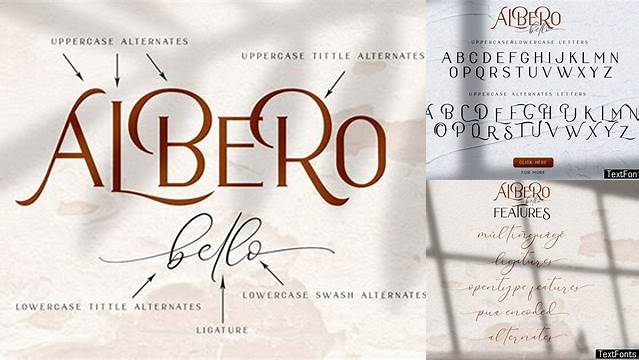
Alberobello Font: Free Serif Display For You
Hey guys! Are you on the hunt for a stunning and unique serif display font? Look no further! We're diving deep into the world of Alberobello, a font that's capturing hearts with its elegant curves and timeless appeal. In this article, we'll explore everything you need to know about this amazing font, from its history and characteristics to where you can snag it for free and how to best use it in your design projects. Get ready to unleash your creativity with Alberobello! This font is perfect for adding a touch of sophistication to any design. Using a display font like Alberobello can elevate your projects and make them stand out from the crowd. You can use Alberobello in logos, websites, and various marketing materials.
1. What is Alberobello Font?
Alberobello is more than just a font; it's a statement. This elegant serif display font draws inspiration from classic typography while incorporating a modern twist. Its distinctive letterforms and balanced proportions make it incredibly versatile, suitable for a wide range of design applications. If you are looking for something that feels both vintage and contemporary, Alberobello should be high on your list. Its clean lines and sophisticated details create a visually appealing typeface that is both legible and captivating. The font's personality shines through in its unique serifs and the subtle variations in stroke weight. You'll notice the careful attention to detail in every character, making Alberobello a true work of art. Think of Alberobello as the little black dress of fonts – it’s classic, timeless, and always in style. Whether you're designing a wedding invitation, a brand logo, or a website header, Alberobello adds a touch of class and sophistication that's hard to beat. It's the kind of font that makes people stop and take notice, leaving a lasting impression with its subtle yet powerful presence.
2. The History and Inspiration Behind Alberobello
To truly appreciate Alberobello, it helps to understand its roots. This font often takes its name and inspiration from the picturesque town of Alberobello in Italy, known for its unique trulli architecture – whitewashed stone huts with conical roofs. The font's design subtly reflects the town's charm and character, blending traditional Italian aesthetics with a contemporary feel. The creators of Alberobello likely aimed to capture the essence of this enchanting town, translating its architectural beauty into typographic form. Imagine the quaint streets and the striking silhouettes of the trulli; these images are subtly echoed in the font's distinctive shapes and lines. The historical context adds depth and meaning to the font, making it more than just a set of characters. It's a piece of Italian heritage, reimagined for the digital age. This connection to history gives Alberobello a sense of authenticity and timelessness. It's a font that tells a story, evoking the spirit of a place and a culture. When you use Alberobello, you're not just choosing a typeface; you're choosing to bring a little piece of Italy into your design.
3. Key Characteristics of Alberobello Serif
What makes Alberobello stand out from the crowd? Let's dive into its key characteristics. As a serif font, it features the small decorative strokes (serifs) at the ends of the letters, giving it a classic and formal appearance. However, Alberobello doesn’t stop there. Its serifs are uniquely designed, often with a slight curve or a distinctive shape, adding a touch of personality. The contrast between thick and thin strokes is another defining feature, creating visual interest and enhancing readability. The letterforms are well-balanced and proportioned, ensuring a harmonious and elegant overall look. Alberobello also boasts a generous x-height (the height of the lowercase letters), which contributes to its legibility, even at smaller sizes. This is a crucial factor for display fonts, which are often used in headings and titles. The font's overall aesthetic is both sophisticated and approachable, making it suitable for a wide range of projects. Think of it as a refined and friendly serif, perfect for conveying a sense of elegance without feeling stuffy or overly formal. It’s these subtle nuances that make Alberobello such a captivating typeface.
7. Best Design Practices for Using Alberobello
Now that you have Alberobello font ready to go, let's talk about how to use it effectively. As a display font, Alberobello shines brightest in headlines, titles, and logos. Its elegant and distinctive character makes it perfect for grabbing attention and conveying a sense of sophistication. However, it's not the best choice for long blocks of text, as its ornate serifs can become tiring on the eyes. Use it sparingly and strategically to maximize its impact. Pairing Alberobello with a simpler sans-serif font for body text is a great way to create visual contrast and ensure readability. Think of it as creating a harmonious balance between the decorative and the functional. When using Alberobello, pay attention to kerning and tracking (the spacing between letters and words). Adjust these settings to ensure the font looks its best, especially in large sizes. Also, consider the overall tone and message of your design. Alberobello's elegant aesthetic lends itself well to projects that require a touch of class, such as wedding invitations, branding materials for luxury goods, or editorial layouts. But don't be afraid to experiment and break the rules! Sometimes, the most unexpected combinations can lead to stunning results.
8. Pairing Alberobello with Other Fonts
Choosing the right font pairing can make or break a design. Alberobello, with its strong personality, needs a partner that complements it without overshadowing it. A classic approach is to pair it with a clean and modern sans-serif font for body text. This creates a visual hierarchy, allowing Alberobello to stand out in headlines while the sans-serif font ensures readability in longer passages. Some popular sans-serif pairings include Open Sans, Lato, Montserrat, and Roboto. These fonts are versatile and neutral enough to let Alberobello shine. Another option is to pair Alberobello with a more subtle serif font for body text, creating a cohesive yet elegant look. In this case, consider fonts like Merriweather, Lora, or Playfair Display. These serif fonts have a softer, more understated character that complements Alberobello's distinct serifs. When choosing a font pairing, think about the overall message and tone you want to convey. A high-contrast pairing (like Alberobello with a very simple sans-serif) can create a bold and modern feel, while a lower-contrast pairing (like Alberobello with a subtle serif) can evoke a more classic and refined aesthetic. The key is to find a balance that enhances both fonts and creates a visually appealing design.
9. Alberobello for Branding and Logo Design
If you're looking to create a brand identity that exudes elegance and sophistication, Alberobello is an excellent choice. Its distinctive serifs and refined letterforms make it perfect for logos and branding materials. Alberobello can help your brand stand out from the crowd, conveying a sense of quality and timelessness. In logo design, Alberobello works particularly well for brands in industries such as fashion, beauty, hospitality, and luxury goods. Its classic yet modern aesthetic aligns perfectly with these sectors. When using Alberobello in a logo, consider the overall simplicity and memorability of the design. A logo should be easily recognizable and scalable, so avoid overcrowding it with too many elements. Pair Alberobello with a strong visual mark or symbol to create a cohesive brand identity. In addition to logos, Alberobello can also be used effectively in other branding materials, such as business cards, letterheads, and website headers. Its versatility allows you to create a consistent and polished brand image across all platforms. Whether you're launching a new business or rebranding an existing one, Alberobello can help you create a lasting impression.
10. Using Alberobello in Web Design
Alberobello isn't just for print; it can also shine in web design. Its elegant character makes it a great choice for website headers, titles, and navigation menus. However, it's important to use it judiciously to ensure optimal readability and website performance. As with print design, it's best to avoid using Alberobello for long blocks of text on the web. Instead, pair it with a clean and legible sans-serif font for body text. This will create a visual hierarchy and make your website easier to read. When using Alberobello on the web, consider the font size and line height. Larger font sizes and generous line heights will improve readability, especially on screens with varying resolutions. Also, think about the overall color scheme and design of your website. Alberobello's elegant aesthetic works well with a minimalist and sophisticated design. Pay attention to the loading time of your website when using custom fonts. Alberobello, like any other font file, can add to the page load time if it's not optimized properly. Use web font formats like WOFF and WOFF2 to ensure optimal performance. With the right approach, Alberobello can add a touch of elegance and sophistication to your website.
11. Alberobello in Print Design: Invitations and More
For print design projects that require a touch of class, Alberobello is a fantastic choice. Think wedding invitations, greeting cards, brochures, and magazine layouts. Its refined serifs and balanced letterforms add a level of sophistication that's hard to beat. Alberobello shines in projects where you want to convey a sense of quality and elegance. In wedding invitations, for example, Alberobello can create a timeless and romantic feel. Pair it with delicate paper stock and elegant typography to create a truly memorable invitation. For brochures and magazine layouts, use Alberobello for headlines and subheadings to grab the reader's attention. Its distinctive character will help your content stand out. When using Alberobello in print, pay attention to the printing process and paper quality. Certain printing techniques, such as letterpress or foil stamping, can enhance the font's elegance and create a luxurious feel. Also, choose a paper stock that complements the font's aesthetic. A smooth, matte paper will showcase Alberobello's refined details, while a textured paper can add a touch of character and depth. Whether you're designing a simple greeting card or a complex magazine layout, Alberobello can help you achieve a polished and professional look.
12. Alberobello for Editorial and Publishing Projects
In the world of editorial and publishing, choosing the right typeface is crucial for creating a visually appealing and engaging reading experience. Alberobello, with its elegant serifs and balanced letterforms, can be a valuable asset for editorial and publishing projects. Its distinctive character makes it well-suited for headlines, subheadings, and pull quotes, adding a touch of sophistication to the layout. However, as with other display fonts, it's best to avoid using Alberobello for long blocks of body text. Instead, pair it with a legible and comfortable serif or sans-serif font for the main text. When designing a book or magazine layout, consider the overall tone and style of the publication. Alberobello's refined aesthetic works well with projects that require a sense of elegance and authority. It's particularly suitable for publications in fields such as fashion, art, literature, and history. Pay attention to the leading (the space between lines) and the kerning (the space between letters) when using Alberobello in editorial projects. Proper leading and kerning will enhance readability and create a more visually appealing layout. Also, consider the use of white space and the overall balance of the design. A well-designed editorial layout should be both informative and aesthetically pleasing.
13. Creating a Visual Hierarchy with Alberobello
Visual hierarchy is the arrangement of elements in a design to guide the viewer's eye and convey the importance of different pieces of information. Alberobello, with its strong personality and distinctive serifs, can be a powerful tool for creating a clear and effective visual hierarchy. Use Alberobello for the most important elements in your design, such as headlines, titles, and key messages. Its elegant character will help these elements stand out and grab the viewer's attention. For less important elements, such as body text or secondary information, choose a simpler and more understated font. This will create a visual contrast and allow Alberobello to shine. Consider the size, weight, and color of the text when creating a visual hierarchy. Larger font sizes, bolder weights, and contrasting colors will draw the eye more effectively. Use Alberobello in a larger size and bolder weight for headlines, and a smaller size and lighter weight for subheadings. Also, think about the placement of elements in your design. Position the most important elements in prominent locations, such as the top or center of the page. Use white space to create separation and emphasize key elements. By using Alberobello strategically and considering the principles of visual hierarchy, you can create designs that are both aesthetically pleasing and highly effective.
14. Alberobello and Typography Trends in 2024
Typography trends are constantly evolving, reflecting changes in design aesthetics and technological advancements. In 2024, we're seeing a resurgence of classic serif fonts, but with a modern twist. Alberobello, with its elegant serifs and balanced letterforms, fits perfectly into this trend. Many designers are embracing display serifs like Alberobello for headlines and branding materials, pairing them with clean and minimalist sans-serif fonts for body text. This creates a visual contrast that's both stylish and legible. Another trend in 2024 is the use of variable fonts, which allow for greater flexibility and customization. While Alberobello may not be available as a variable font in all versions, it's worth keeping an eye out for future updates. Bold and impactful typography is also a major trend in 2024. Designers are using large font sizes and bold weights to create a strong visual impact. Alberobello, with its distinctive serifs, can be used effectively in this context, especially in headlines and logos. However, it's important to use bold typography judiciously and avoid overcrowding the design. By staying up-to-date with typography trends and incorporating fonts like Alberobello into your designs, you can create work that's both contemporary and timeless.
15. Exploring Alternatives to Alberobello Font
While Alberobello is a fantastic choice for many design projects, it's always good to explore alternatives and expand your typographic palette. There are many other serif display fonts that offer similar aesthetics and characteristics. If you're looking for a font with a similar level of elegance and sophistication, consider options like Playfair Display, Lora, or Merriweather. These fonts share Alberobello's refined serifs and balanced letterforms, making them suitable for similar design applications. For a slightly more modern and geometric take on the serif genre, check out fonts like Raleway or Montserrat. These fonts have a cleaner and more minimalist aesthetic, while still retaining the classic charm of a serif typeface. If you're looking for a font with a more vintage or retro feel, consider options like Baskerville or Garamond. These fonts have a long and distinguished history, and they can add a touch of nostalgia to your designs. Ultimately, the best alternative to Alberobello will depend on the specific needs and goals of your project. Experiment with different fonts and font pairings to find the perfect typographic solution.
16. Alberobello vs. Other Serif Fonts: A Comparison
To truly appreciate Alberobello, it's helpful to compare it to other serif fonts. This will highlight its unique characteristics and help you determine when it's the best choice for your design project. Compared to classic serif fonts like Times New Roman or Garamond, Alberobello has a more contemporary and elegant feel. Its serifs are more distinctive, and its letterforms are more balanced and refined. While Times New Roman and Garamond are excellent choices for body text, Alberobello is better suited for headlines and display purposes. Compared to other display serifs like Playfair Display or Lora, Alberobello has a slightly more subtle and understated character. Playfair Display, for example, has more dramatic serifs and a higher level of contrast. Alberobello is a good choice if you want a font that's elegant without being overly ornate. When choosing between Alberobello and other serif fonts, consider the overall tone and style of your design. If you're looking for a classic and traditional feel, fonts like Times New Roman or Garamond might be a better choice. If you're aiming for a more modern and sophisticated aesthetic, Alberobello or Playfair Display could be a good fit.
17. The Psychology of Fonts: What Alberobello Conveys
Fonts, like colors, can evoke emotions and associations. Understanding the psychology of fonts can help you choose the right typeface for your project and convey the desired message. Alberobello, with its elegant serifs and balanced letterforms, typically conveys a sense of sophistication, refinement, and trustworthiness. It's a font that suggests quality, tradition, and attention to detail. When used in branding, Alberobello can help a brand project an image of luxury, elegance, and reliability. It's a good choice for brands that want to convey a sense of timelessness and sophistication. In editorial design, Alberobello can add a touch of class to headlines and titles, making the content feel more authoritative and engaging. However, it's important to consider the context in which the font is used. Pairing Alberobello with the wrong colors or imagery can undermine its intended effect. For example, using Alberobello with overly bright and playful colors might create a jarring contrast. Think about the overall message you want to convey and choose a font that aligns with your goals.
18. Common Mistakes to Avoid When Using Display Fonts
Display fonts like Alberobello can add a lot of personality to your designs, but they're also easy to misuse. Avoiding common mistakes will ensure your typography is both effective and aesthetically pleasing. One of the biggest mistakes is using display fonts for long blocks of text. Display fonts are designed for headlines, titles, and short bursts of text, not for body copy. Using Alberobello for long paragraphs will make your text difficult to read and tire the reader's eyes. Another mistake is overcrowding the design with too many display fonts. Using multiple display fonts in the same design can create a chaotic and overwhelming effect. Stick to one display font for the main headlines and use a simpler font for the rest of the text. Also, be careful with font pairings. Pairing two display fonts that are too similar or too different can create a visual conflict. Choose font pairings that complement each other and create a sense of harmony. Pay attention to kerning and tracking. Display fonts often require careful kerning and tracking adjustments to look their best. Make sure the spacing between letters is consistent and visually pleasing. By avoiding these common mistakes, you can use display fonts like Alberobello effectively and create stunning designs.
19. The Future of Serif Fonts: Alberobello's Place
Serif fonts have a long and distinguished history, and they continue to evolve and adapt to the changing landscape of design. In the digital age, serif fonts have seen a resurgence in popularity, with designers embracing their classic elegance and readability. Alberobello, with its modern twist on the traditional serif, is well-positioned to play a significant role in the future of typography. As design trends continue to shift towards a blend of classic and contemporary aesthetics, fonts like Alberobello will likely remain in high demand. Its versatility makes it suitable for a wide range of applications, from branding and web design to editorial and print projects. The rise of variable fonts may also influence the future of serif fonts. Variable fonts allow for greater flexibility and customization, enabling designers to create unique typographic expressions. While Alberobello may not be available as a variable font in all versions, it's possible that future updates will incorporate this technology. The key to the future of serif fonts is adaptability and innovation. Fonts like Alberobello that can blend tradition with modernity will continue to thrive and inspire designers for years to come.
20. How Alberobello Enhances User Experience
User experience (UX) is a critical aspect of design, and typography plays a significant role in shaping the user's overall experience. Alberobello, when used effectively, can enhance UX by creating a visually appealing and engaging design. A well-chosen font can improve readability, guide the user's eye, and convey the brand's personality. Alberobello, with its elegant serifs and balanced letterforms, can create a sense of sophistication and trustworthiness, which can be particularly beneficial for brands that want to build credibility. In web design, using Alberobello for headlines and titles can help users quickly scan and understand the content. Its distinctive character will draw the eye and make the important information stand out. However, it's important to use Alberobello judiciously and pair it with a legible font for body text. Overusing a display font can make the text difficult to read and negatively impact UX. Consider the font size, line height, and color contrast when using Alberobello. These factors can significantly affect readability and user comfort. By considering the principles of UX and using fonts like Alberobello strategically, you can create designs that are both aesthetically pleasing and user-friendly.
21. Alberobello Font in Packaging Design
Packaging design is a critical aspect of branding and marketing, and the typography you choose can make a significant impact on how your product is perceived. Alberobello, with its elegant and sophisticated aesthetic, can be a fantastic choice for packaging design projects, especially for products that aim to convey a sense of luxury, quality, or tradition. When used on packaging, Alberobello can help your product stand out on the shelf and catch the eye of potential customers. Its distinctive serifs and balanced letterforms add a touch of class that can elevate the overall design. Think about using Alberobello for product names, taglines, or ingredient lists. However, it’s essential to ensure the font size and weight are legible, even on smaller packaging formats. Consider the overall design and material of the packaging when using Alberobello. It pairs particularly well with premium materials like textured paper, metallic accents, or minimalist designs. The font’s elegance complements high-quality packaging, enhancing the product’s perceived value. Always ensure your typographic choices align with the product’s brand identity and target audience. Alberobello is great for products targeting consumers who appreciate classic elegance and refined aesthetics.
22. The Versatility of Alberobello Across Industries
One of the remarkable aspects of Alberobello is its versatility across a wide range of industries. While it’s often associated with luxury and elegance, Alberobello can be adapted to fit various brand identities and design contexts. In the fashion industry, Alberobello is perfect for branding, editorial layouts, and marketing materials for high-end clothing and accessories. Its sophisticated character helps convey style and exclusivity. For the hospitality industry, Alberobello can enhance the branding of hotels, restaurants, and cafes, creating an atmosphere of refinement and welcoming charm. The font’s elegance is well-suited for menus, signage, and promotional materials. In the beauty industry, Alberobello complements the branding of skincare, cosmetics, and fragrance products, adding a touch of sophistication and luxury to the packaging and advertising. Even in more corporate settings, Alberobello can be used to inject a sense of class and professionalism into company branding, reports, and presentations. The key to using Alberobello effectively across industries is understanding your brand’s core values and aligning the font’s aesthetic with your message. This font’s adaptability makes it a valuable asset in the designer’s toolkit, capable of adding a touch of elegance and style to almost any project.
23. Mastering Kerning and Tracking with Alberobello
Kerning and tracking are crucial aspects of typography that can significantly impact the readability and visual appeal of your designs. Mastering these techniques is especially important when working with display fonts like Alberobello, which have unique shapes and spacing requirements. Kerning refers to the adjustment of space between individual pairs of letters. Display fonts often require manual kerning adjustments to ensure a harmonious and balanced appearance. Letters with diagonal or curved shapes may need tighter kerning to prevent excessive gaps, while letters with straight sides may need more space. Tracking, on the other hand, involves the uniform adjustment of space between all letters in a word or line of text. Tracking can be used to create a more open or condensed look, but excessive tracking can hinder readability. When working with Alberobello, pay close attention to the kerning between letter pairs like “AV,” “WA,” and “To.” These combinations often require manual adjustments to achieve optimal spacing. Use tracking sparingly to fine-tune the overall appearance of your text. Start by setting the kerning and tracking to zero and then make adjustments as needed. Careful kerning and tracking will ensure Alberobello looks its best, making your text appear both elegant and professional.
24. The Importance of Font Weight in Alberobello's Usage
The weight of a font refers to its thickness, ranging from light to bold. The font weight you choose can significantly impact the legibility and visual impact of your text, especially with a font like Alberobello. Alberobello typically comes in various weights, including regular, bold, and sometimes even light or semibold. Each weight offers a distinct visual character and is suited for different purposes. The regular weight is ideal for most body text and general-purpose use. It provides a balanced and legible appearance without being too overpowering. The bold weight is perfect for headlines, titles, and emphasized text. The increased thickness draws attention and creates a strong visual hierarchy. Light weights, if available, can add a delicate and elegant touch to your designs, but should be used sparingly, as they can sometimes be less legible, especially in smaller sizes or on screens. When using Alberobello, consider the context and purpose of your text. For headlines and titles, a bold weight can make a statement, while for longer passages, the regular weight ensures readability. Using font weight strategically is essential for creating a clear visual hierarchy and enhancing the overall aesthetic appeal of your designs.
25. Showcasing Alberobello in Portfolio Presentation
When presenting your design work in a portfolio, showcasing your typographic choices effectively is crucial. Alberobello, with its elegant and distinctive character, can be a highlight in your portfolio if presented well. First, make sure to use high-quality visuals. Showcasing Alberobello in real-world applications, such as branding mockups, editorial layouts, or website designs, can help potential clients or employers appreciate its versatility. Include close-ups of your designs to highlight the details of the font, such as its serifs and letterforms. This allows viewers to see the font’s unique characteristics up close. In your portfolio description, explain why you chose Alberobello for the project. Discuss its suitability for the brand identity, the target audience, or the overall design goals. This demonstrates your understanding of typography and your ability to make informed design decisions. When presenting your work online, ensure your website or portfolio platform optimizes font rendering. This will help maintain the font’s clarity and legibility across different devices and browsers. By effectively showcasing Alberobello in your portfolio, you not only highlight your design skills but also demonstrate your appreciation for typographic excellence.
26. Alberobello and the Importance of White Space
White space, also known as negative space, is the empty space around design elements, including text. It’s a crucial element in design that helps improve readability, create visual hierarchy, and enhance the overall aesthetic appeal. When using Alberobello, incorporating sufficient white space is especially important to let the font breathe and make its elegance truly shine. White space helps to avoid a cluttered or overwhelming design. It gives the viewer’s eyes a break and makes the text more inviting to read. When using Alberobello for headlines or titles, ensure there’s ample space around the text to create a focal point. Proper use of margins, padding, and line spacing can significantly impact the legibility of Alberobello in body text. Adequate white space between lines and paragraphs makes longer passages easier to read. Think of white space as an active element in your design, not just an empty void. It plays a critical role in balancing the design and highlighting the key elements. When using an elegant font like Alberobello, the thoughtful application of white space can elevate your design, giving it a sense of sophistication and professionalism.
27. The Ethical Use of Free Fonts Like Alberobello
Using free fonts like Alberobello can be a fantastic way to enhance your design projects without incurring additional costs. However, it’s crucial to use these fonts ethically and respect the rights of the font designers. Always check the font license before using a free font in your projects. Font licenses specify the terms of use, including whether the font can be used for commercial purposes, personal projects, or both. Some free fonts may have restrictions on modifications, redistribution, or embedding in websites or applications. If you’re unsure about the license terms, it’s always best to contact the font designer or foundry for clarification. Give credit to the font designer whenever possible. Even if the license doesn’t explicitly require attribution, acknowledging the creator’s work is a good practice and shows your respect for their artistry. If you find yourself using a free font frequently, consider purchasing a commercial license or making a donation to support the designer. This helps sustain the creative community and encourages the creation of more high-quality fonts. Remember, font designers put significant time and effort into their creations, and using fonts ethically is a sign of professionalism and respect.
28. Resources for Learning More About Typography
Typography is a vast and fascinating subject, and continuous learning is essential for designers who want to master the art of type. Fortunately, there are numerous resources available to help you deepen your knowledge of typography. Online courses and tutorials are a great way to learn the fundamentals of typography, including font anatomy, kerning, tracking, and font pairing. Platforms like Skillshare, Coursera, and Udemy offer a wide range of courses for all skill levels. Books on typography offer in-depth insights into the history, theory, and practice of typography. Classics like “The Elements of Typographic Style” by Robert Bringhurst and “Thinking with Type” by Ellen Lupton are highly recommended. Websites and blogs dedicated to typography, such as I Love Typography, Fonts In Use, and Typewolf, provide valuable articles, reviews, and inspiration. Following font foundries and type designers on social media can keep you up-to-date on the latest trends and releases in the world of typography. Typography workshops and conferences offer opportunities to learn from experts, network with other designers, and explore new techniques and technologies. By taking advantage of these resources, you can enhance your typographic skills and create more effective and visually appealing designs.
29. Staying Updated on Free Font Releases and Deals
For designers on a budget, staying informed about free font releases and deals can be a game-changer. There are several ways to keep track of the latest free font offerings and special promotions. Websites and blogs dedicated to free fonts, such as FontSpace, DaFont, and Creative Fabrica’s freebies section, regularly feature new free font releases. Subscribing to newsletters from font foundries and design resource websites is a great way to receive updates directly in your inbox. Many foundries offer free fonts as part of their promotional campaigns, and newsletters often announce these deals. Following font designers and foundries on social media platforms like Twitter, Instagram, and Facebook can provide real-time updates on free font releases and special offers. Online design communities and forums, such as Behance and Dribbble, often have sections or threads where members share information about free fonts and deals. Using RSS feeds or feed readers can help you aggregate updates from various sources, ensuring you don’t miss out on any opportunities. By employing these strategies, you can expand your font library without breaking the bank and discover amazing free fonts like Alberobello for your design projects.
30. Combining Alberobello with Hand-Lettering for a Unique Style
Combining digital fonts with hand-lettering can create a unique and personalized design style that stands out from the crowd. Alberobello, with its elegant and classic aesthetic, can pair beautifully with hand-lettered elements, adding a touch of artistry and human touch to your designs. Consider using Alberobello for the main text, such as headlines or body copy, and incorporating hand-lettered elements for accent words, illustrations, or decorative flourishes. This juxtaposition of digital precision and hand-drawn artistry can create a visually dynamic and engaging design. Experiment with different styles of hand-lettering, such as script, sans-serif, or brush lettering, to find a combination that complements Alberobello’s character. You can create hand-lettered elements digitally using a graphics tablet or draw them on paper and then scan them into your computer. Integrating hand-lettering with a digital font like Alberobello requires careful attention to balance and harmony. Ensure the hand-lettered elements don’t overwhelm the overall design and that they complement the font’s style. This blend of traditional and modern techniques can result in designs that are both unique and aesthetically appealing.